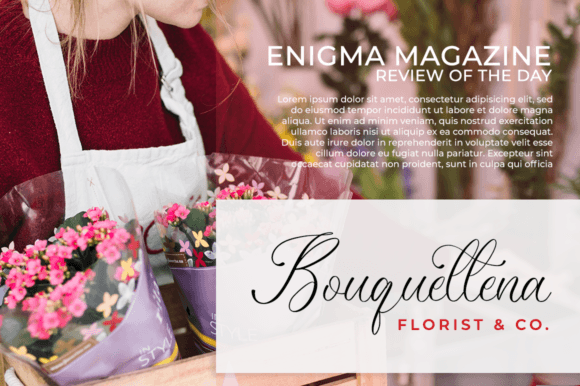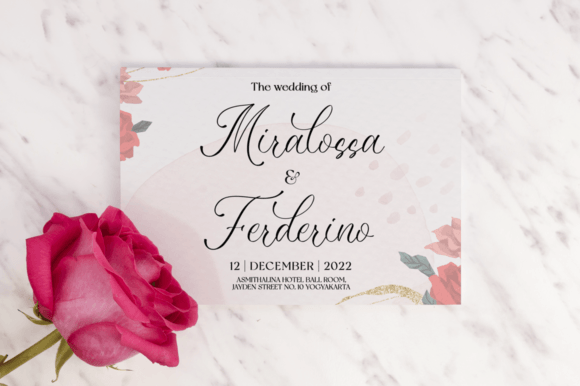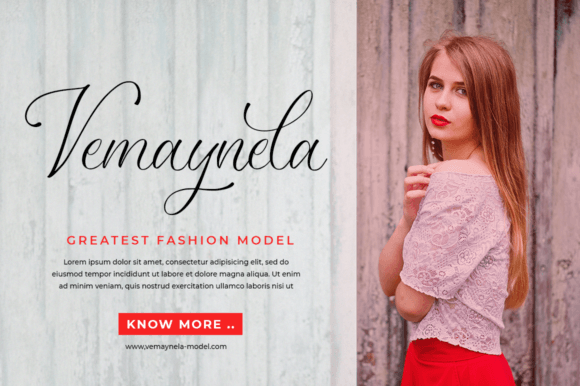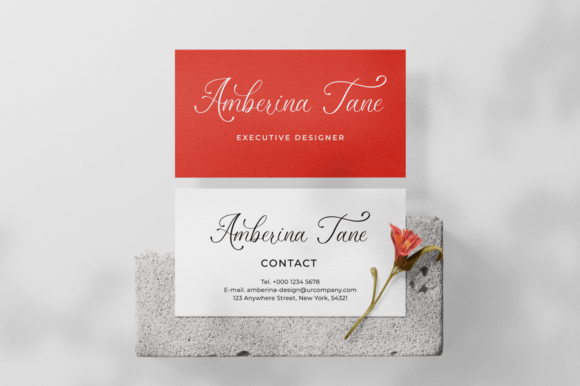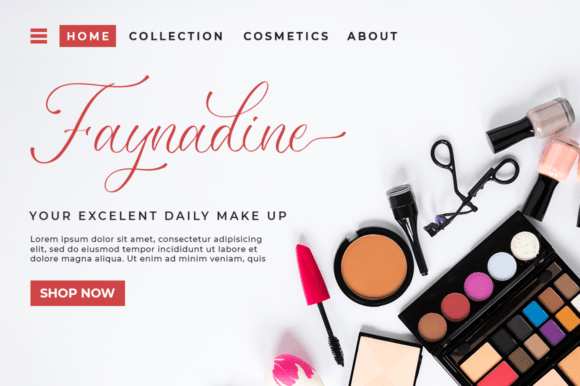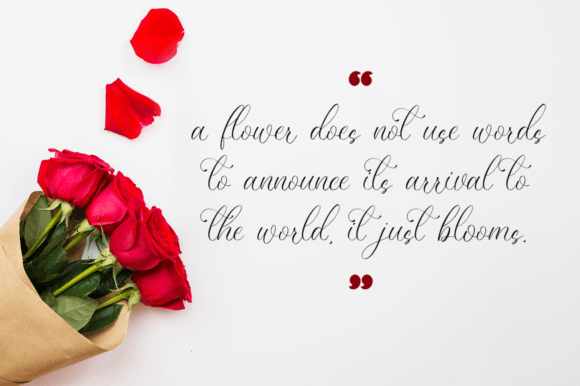
Hanaluna Font: Elevate Your Designs with Elegance and Sophistication
In the world of typography, a beautiful script font can make all the difference in elevating your designs to the next level. If you’re a designer, crafty DIY enthusiast, or social media influencer looking to add a touch of elegance and modernity to your creative projects, look no further than the stunning Hanaluna Font. This gorgeous script font is designed to bring a refined style to your logos, branding, invitations, stationery, wedding designs, social media posts, and many more!
What Makes Hanaluna Font So Special?
Hanaluna Font is a true gem in the world of typography. Its unique and refined style sets it apart from other script fonts, making it perfect for designers and crafters who want to add a touch of sophistication to their work. Here are just a few reasons why Hanaluna Font is a must-have in your font collection:
- Elegant and Modern Design: Hanaluna Font boasts a beautiful, flowing script design that exudes elegance and modernity. Its refined style makes it perfect for high-end branding, luxury packaging, and sophisticated wedding designs.
- PUA Encoded for Easy Access: Hanaluna Font is PUA (Private Use Area) encoded, which means you can access all glyphs and swashes with ease. This feature allows you to unleash your creativity and experiment with different design elements to create truly unique and eye-catching designs.
- Versatile and Flexible: Hanaluna Font is incredibly versatile and can be used for a wide range of design projects, from logos and branding to social media posts and digital crafts.
Whether you’re a professional designer or a crafty DIY enthusiast, Hanaluna Font is the perfect addition to your toolkit. Here are just a few ways you can use Hanaluna Font to elevate your designs:
- Logos and Branding: Create a lasting impression with a custom logo that exudes elegance and sophistication. Hanaluna Font is perfect for high-end branding, luxury packaging, and business cards.
- Invitations and Stationery: Add a touch of refinement to your invitations, stationery, and wedding designs with Hanaluna Font. Its beautiful script style is sure to impress your guests and make your special day even more memorable.
- Social Media Posts: Take your social media game to the next level with Hanaluna Font. Use it to create eye-catching graphics, quotes, and promotional materials that will engage your audience and leave a lasting impression.
- Digital Crafts: If you’re a crafty DIY enthusiast, Hanaluna Font is the perfect addition to your digital crafting toolkit. Use it to create beautiful digital papers, planners, and journals that showcase your creativity and style.
Tips and Tricks for Using Hanaluna Font
To get the most out of Hanaluna Font, here are a few tips and tricks to keep in mind:
- Experiment with Swashes: Hanaluna Font comes with a range of beautiful swashes that can add an extra touch of elegance to your designs. Experiment with different swashes to find the perfect combination for your project.
- Pair it with Other Fonts: Hanaluna Font pairs beautifully with other fonts, especially sans-serif fonts. Experiment with different font combinations to create a unique and eye-catching design.
- Use it for Headings and Titles: Hanaluna Font is perfect for headings and titles, where its elegant script style can really shine. Use it to create eye-catching headings and titles that draw attention to your message.